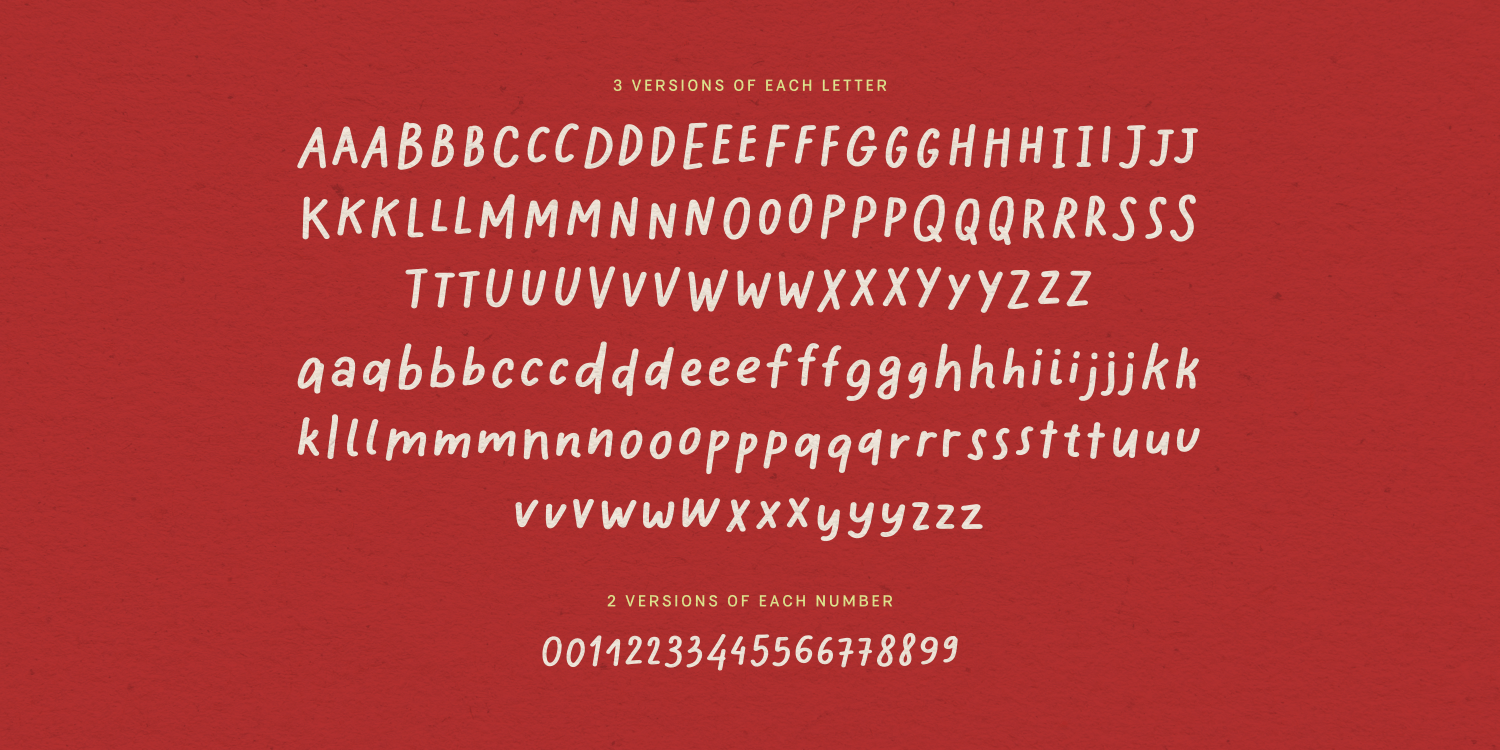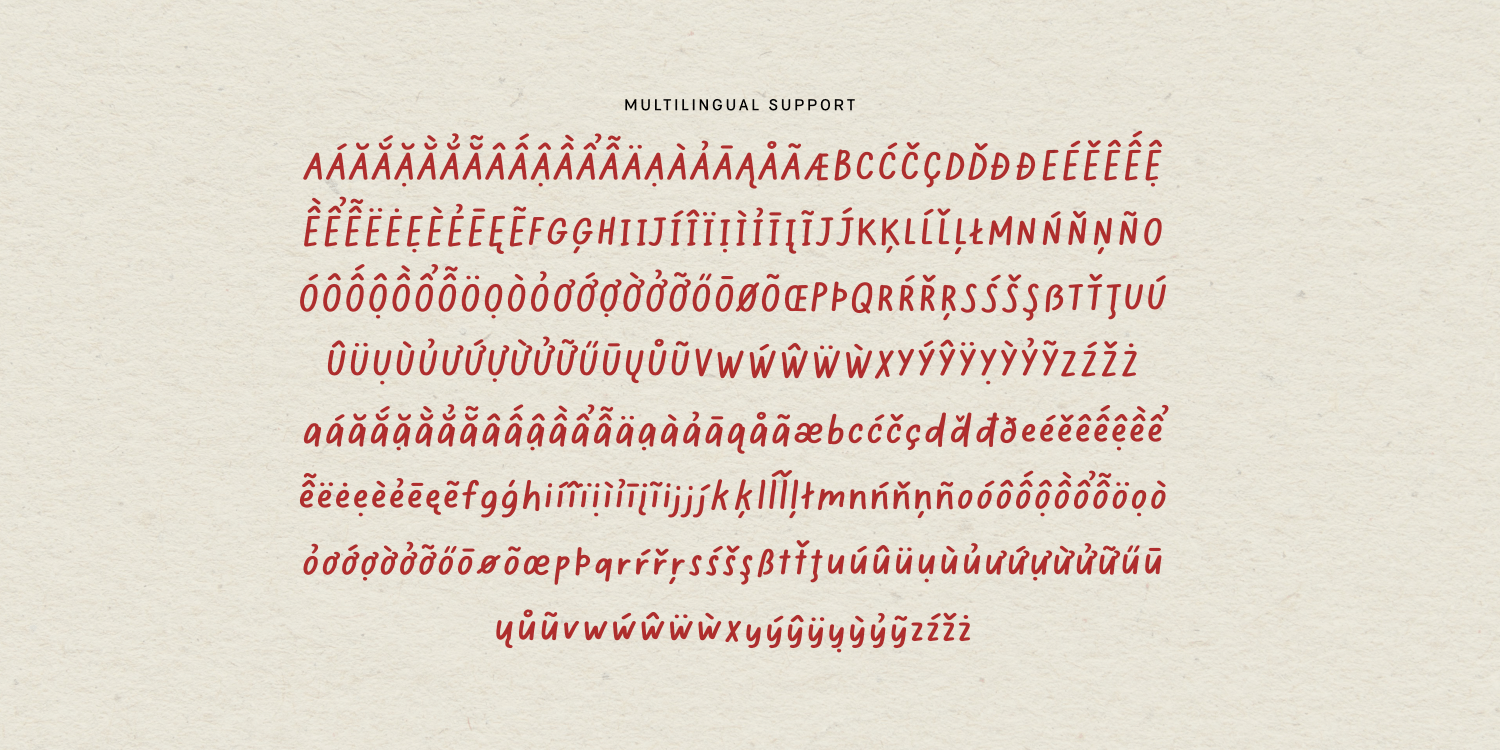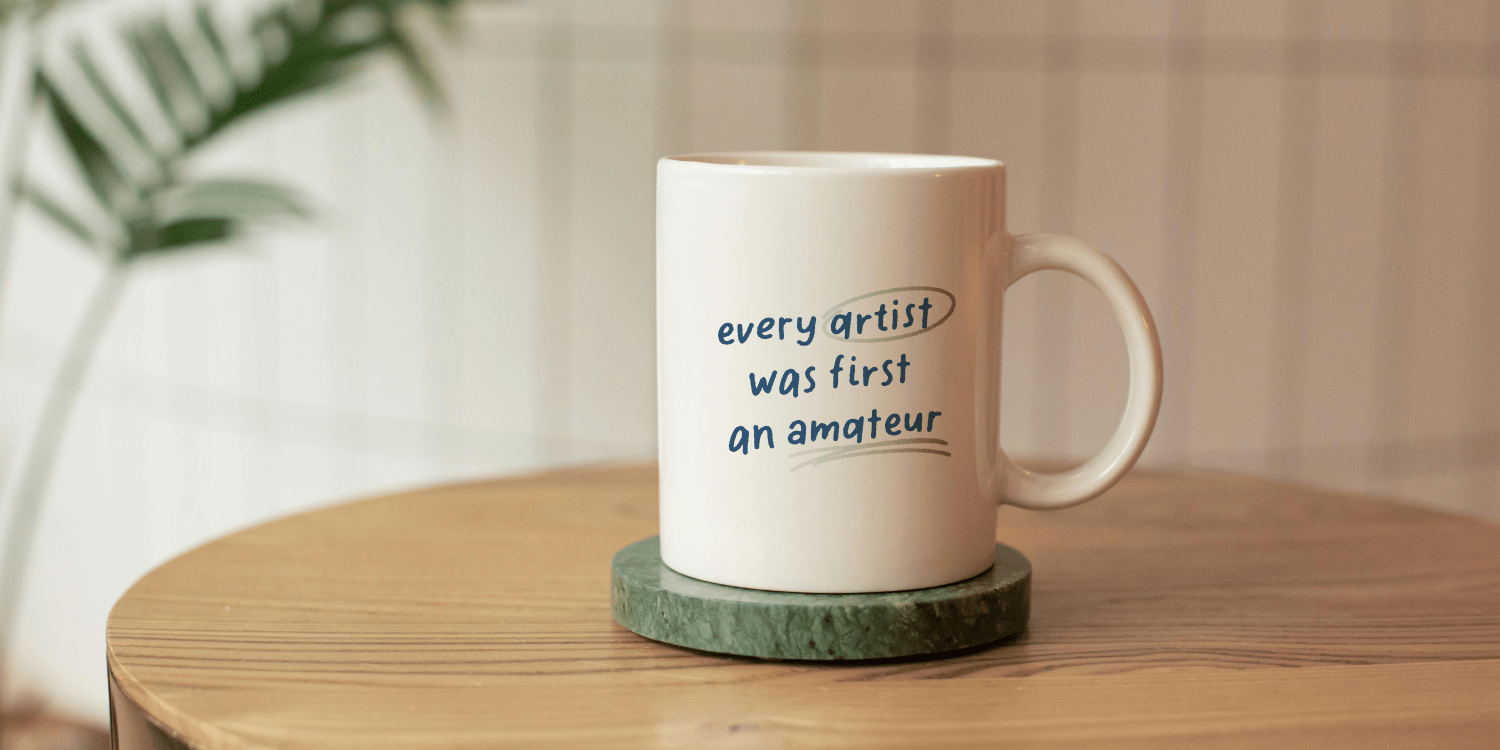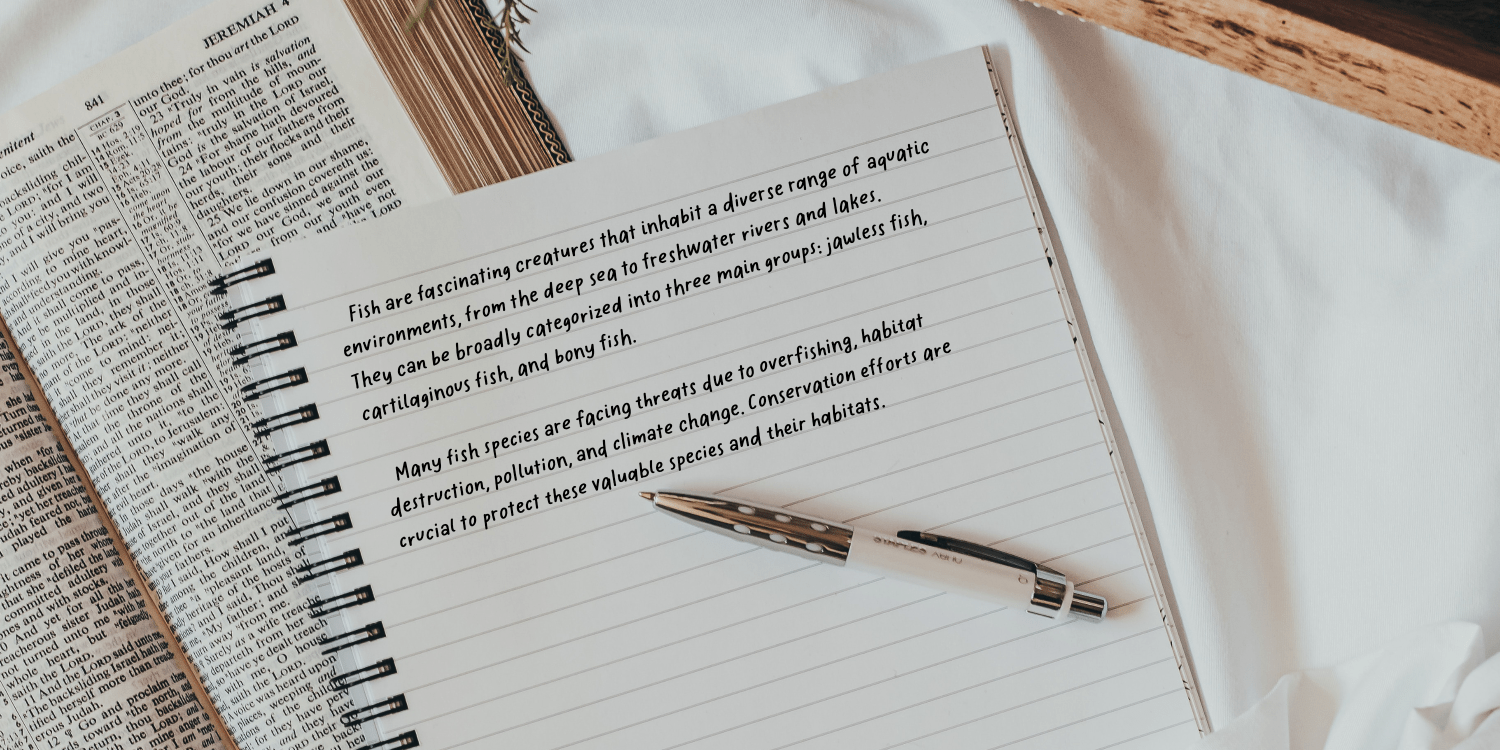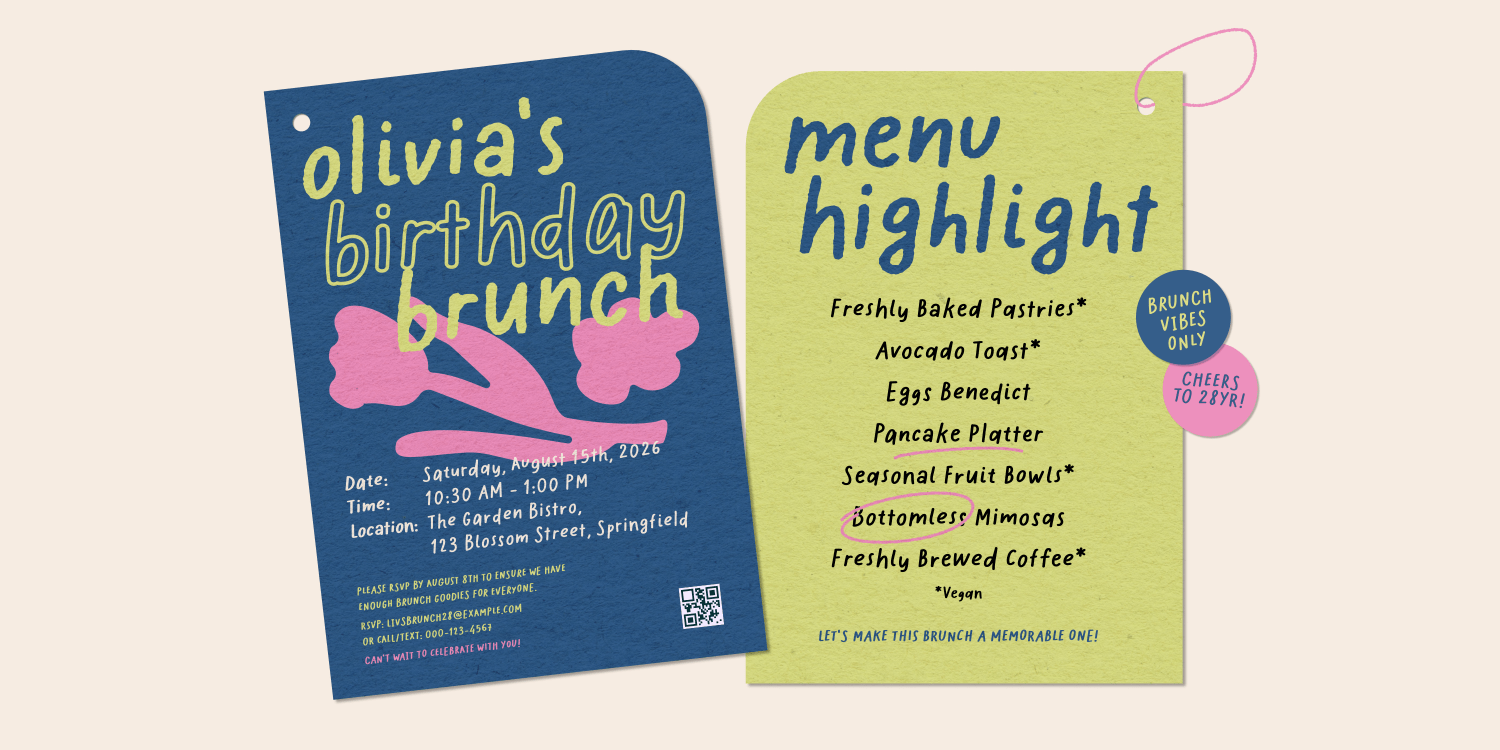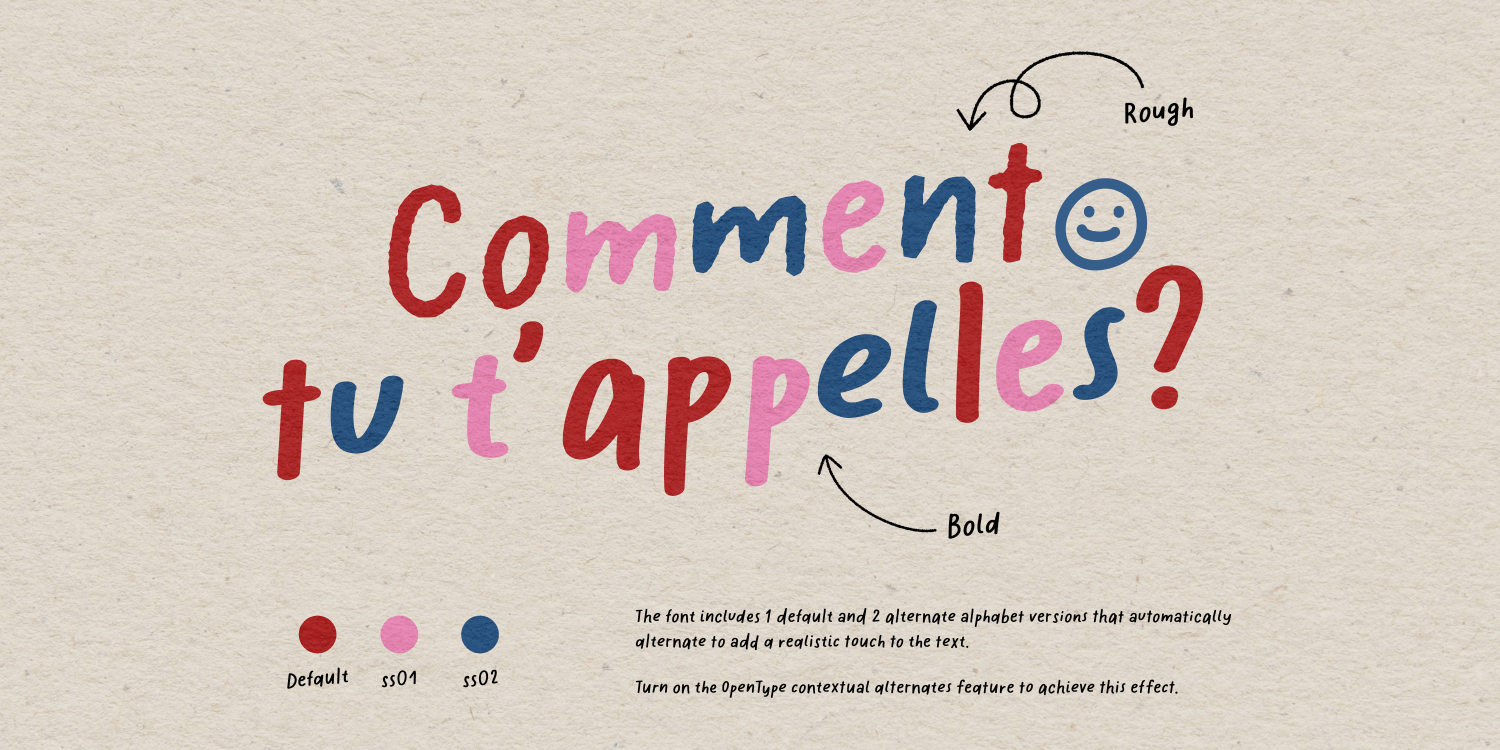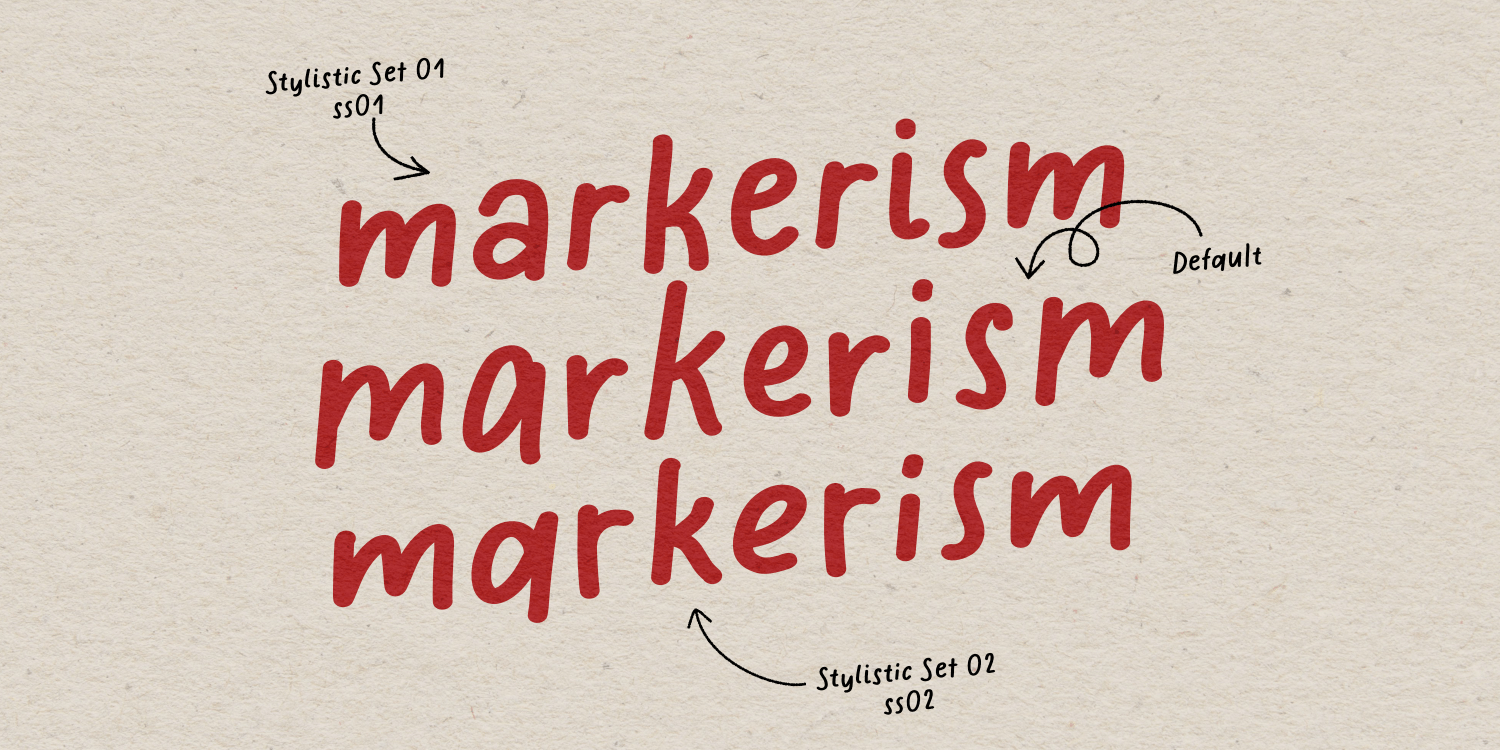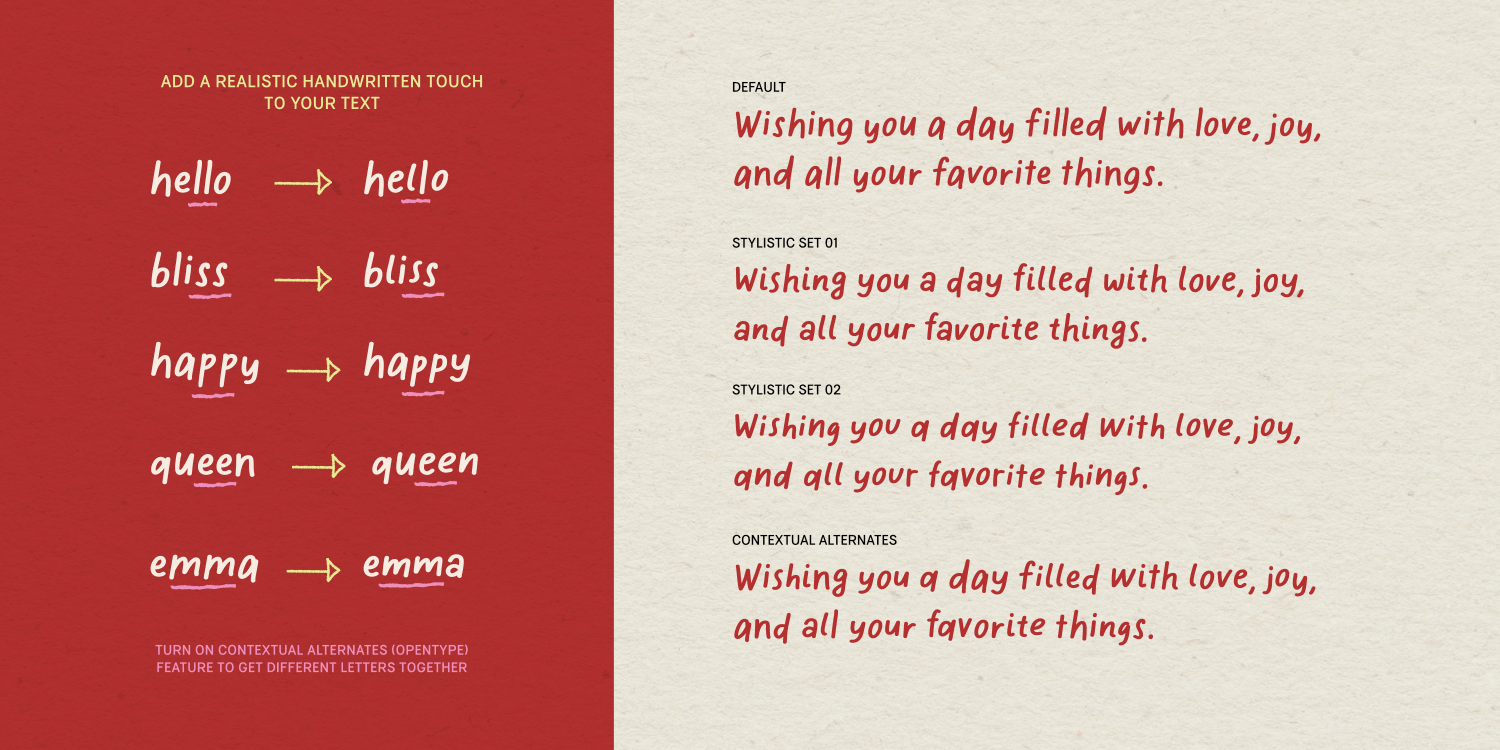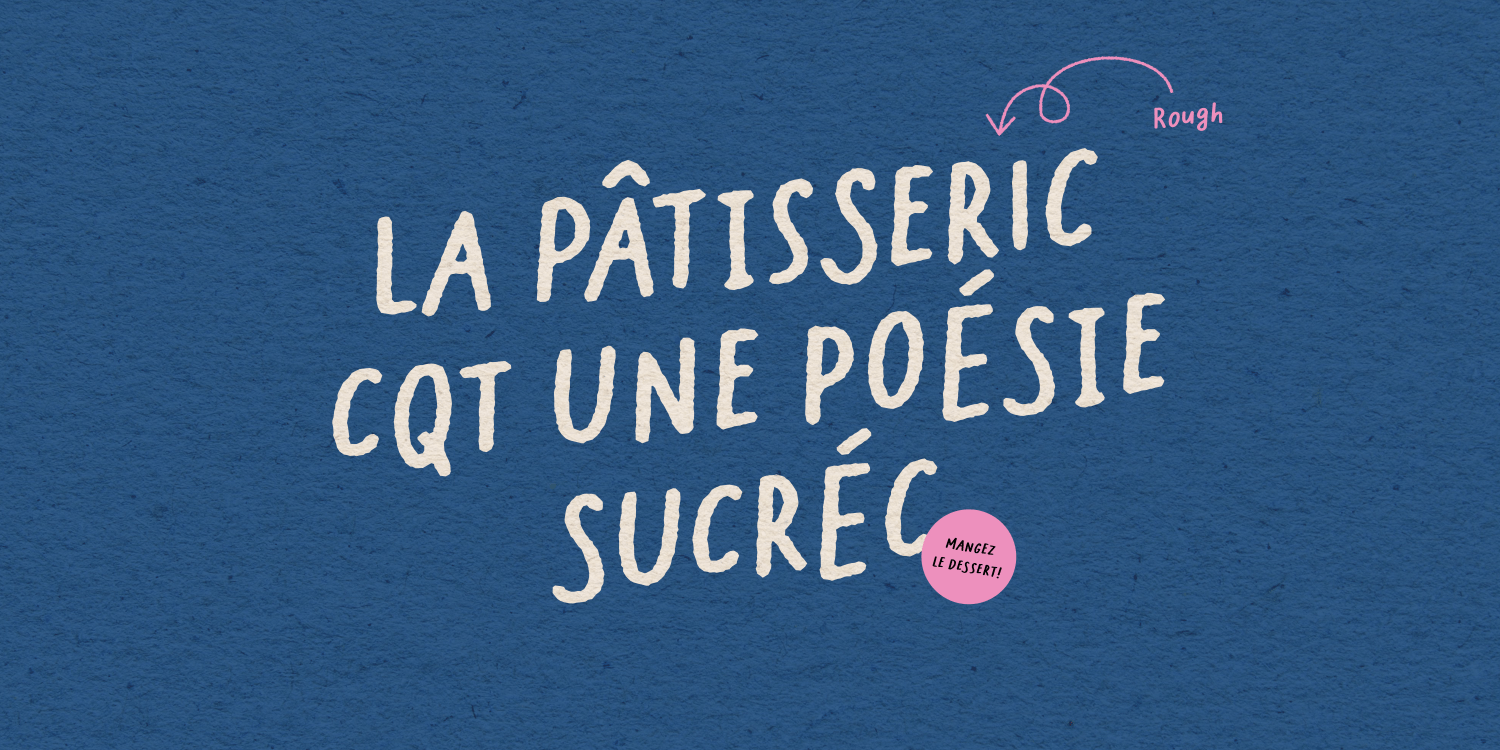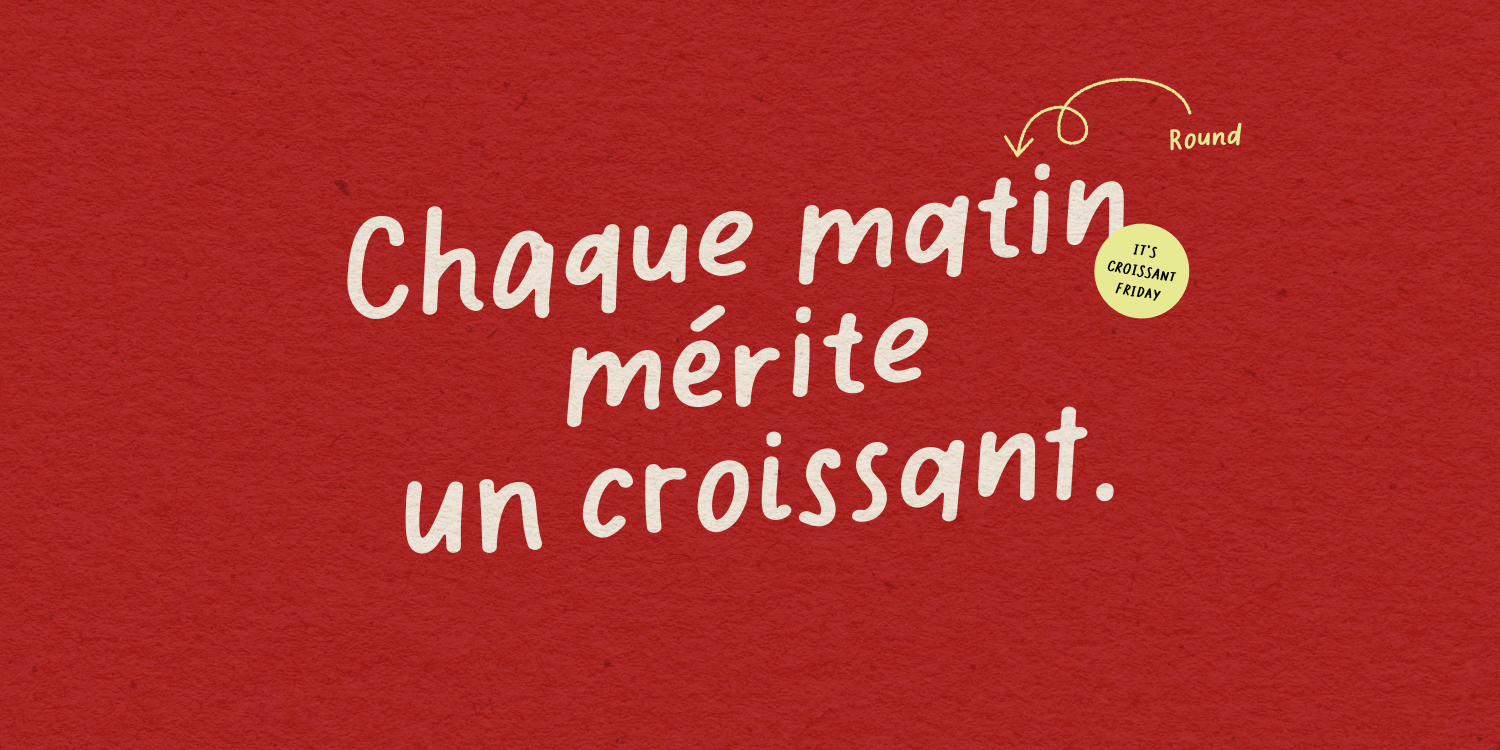
Markerist
Font Family by type peace
Markerist is a maker-style handwritten font family. This typeface comes with a full set of handmade alphabets, numbers, punctuation marks, and symbols, providing you with everything you need for comprehensive and cohesive design work. Perfect for adding a personal touch to your projects, from invitations and greeting cards to branding and social media graphics.
Simply turn on OpenType contextual alternates to add a realistic handwritten touch to your text.
4 styles:
• Regular
• Bold
• Rough
• Round
Font features:
• 3 versions for each letter, 2 version for each number
• Punctuations and symbols
• Multilingual support
• OpenType features (contextual alternates, stylistic sets, etc.)